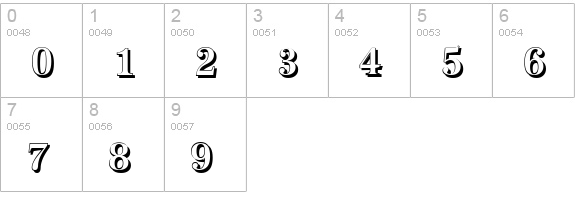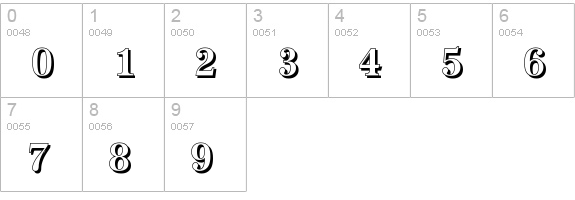
AntiquaSh-Cd-Medium-Regular is a balanced, medium-weight variant in the AntiquaSh typeface family \xE2\x80\x94 well suited to sub-headlines, navigation, and balanced editorial work.
AntiquaSh-Cd-Medium-Regular is a classic and elegant font that exudes sophistication and timelessness. With its medium weight and clean lines, this font is perfect for a wide range of design projects, from branding to editorial design. Its timeless appeal makes it a versatile choice for both print and digital applications. What sets AntiquaSh-Cd-Medium-Regular apart is that it is available for free download at FontsMarket.com. This means that designers and enthusiasts alike can easily access this high-quality font without any cost. Whether you're working on a personal project or a professional design, AntiquaSh-Cd-Medium-Regular is a reliable choice that will elevate your work to the next level. Download it now and add a touch of elegance to your designs!